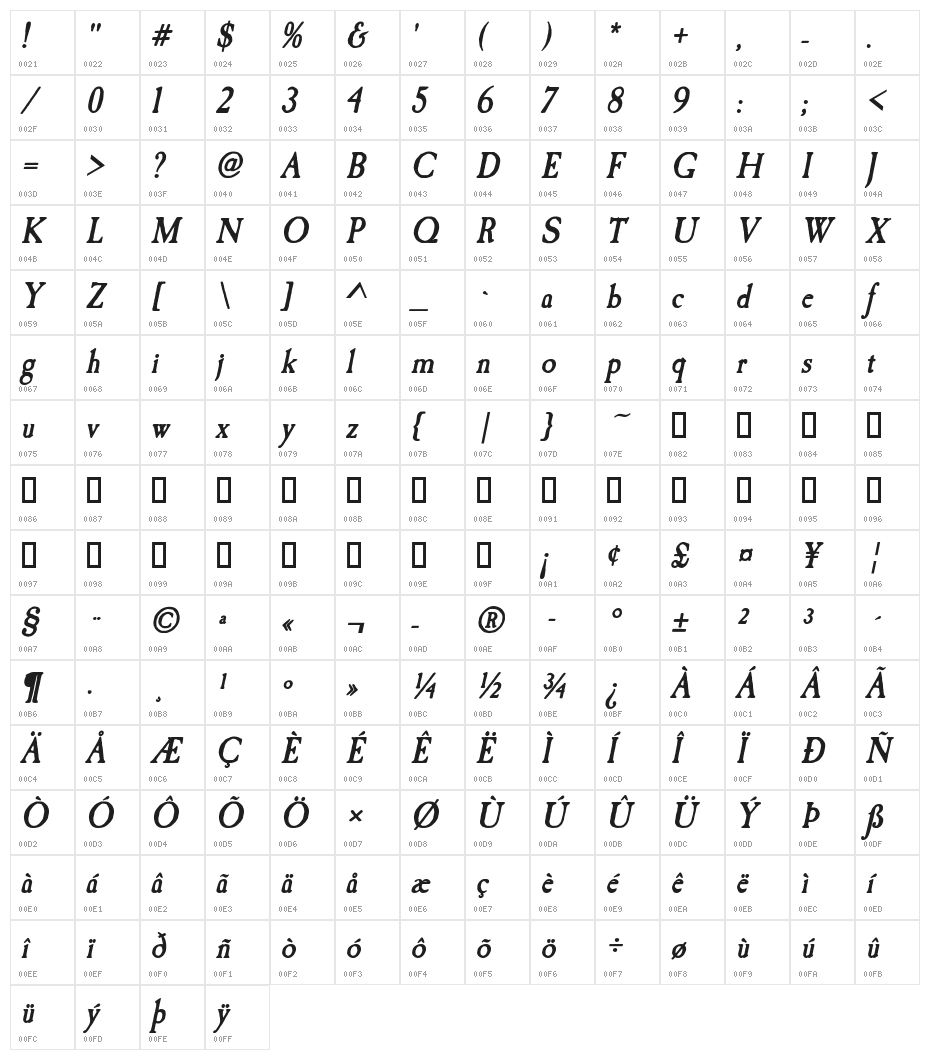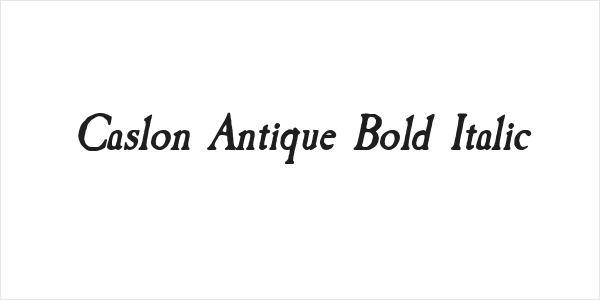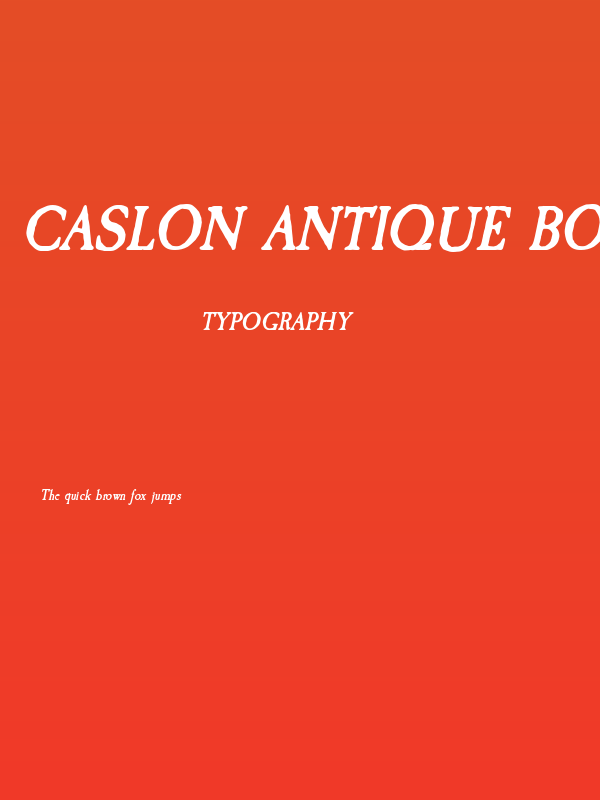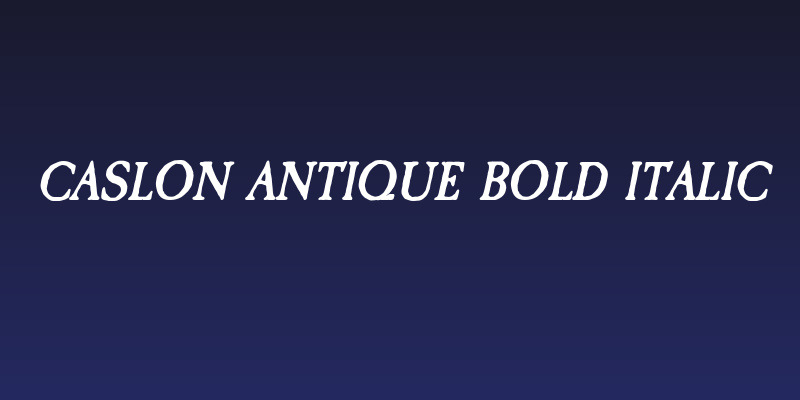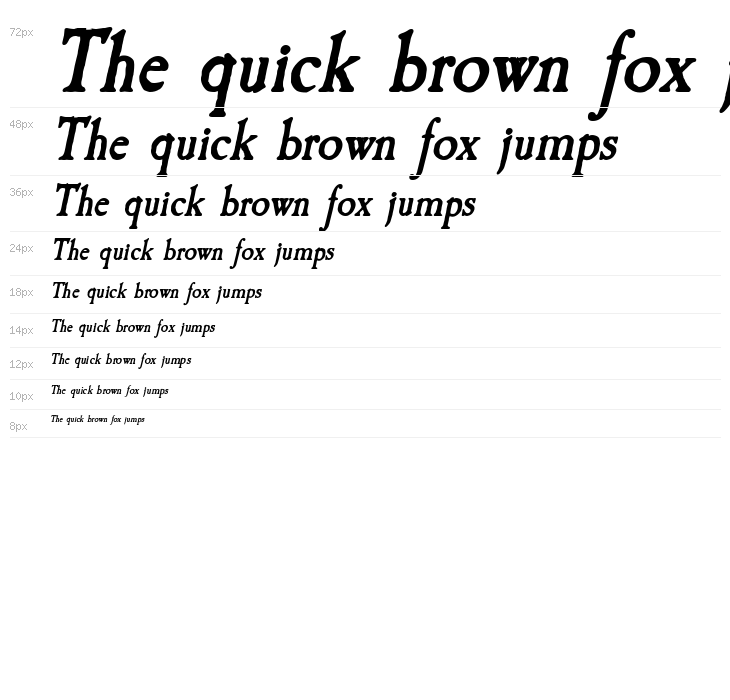
Caslon Antique Bold Italic Font
Caslon Antique Bold Italic Description
This font exhibits a classic and antique style with a bold and italicized appearance. The characters are designed with a distinct slant, adding a dynamic and elegant touch. The serifs are pronounced, giving it a traditional and formal look. The uppercase letters are slightly taller than the lowercase, maintaining a consistent and harmonious balance. The numbers are clear and legible, with a slight curvature that complements the overall style. Special characters are well-integrated, maintaining the font's cohesive aesthetic. This font is suitable for projects that require a vintage or historical feel, offering a touch of sophistication and timelessness.
| Use Case | Headlines, Logos, Decorative text |
| Proposed Projects | Ideal for historical documents, vintage-themed designs, book covers, and formal invitations. |